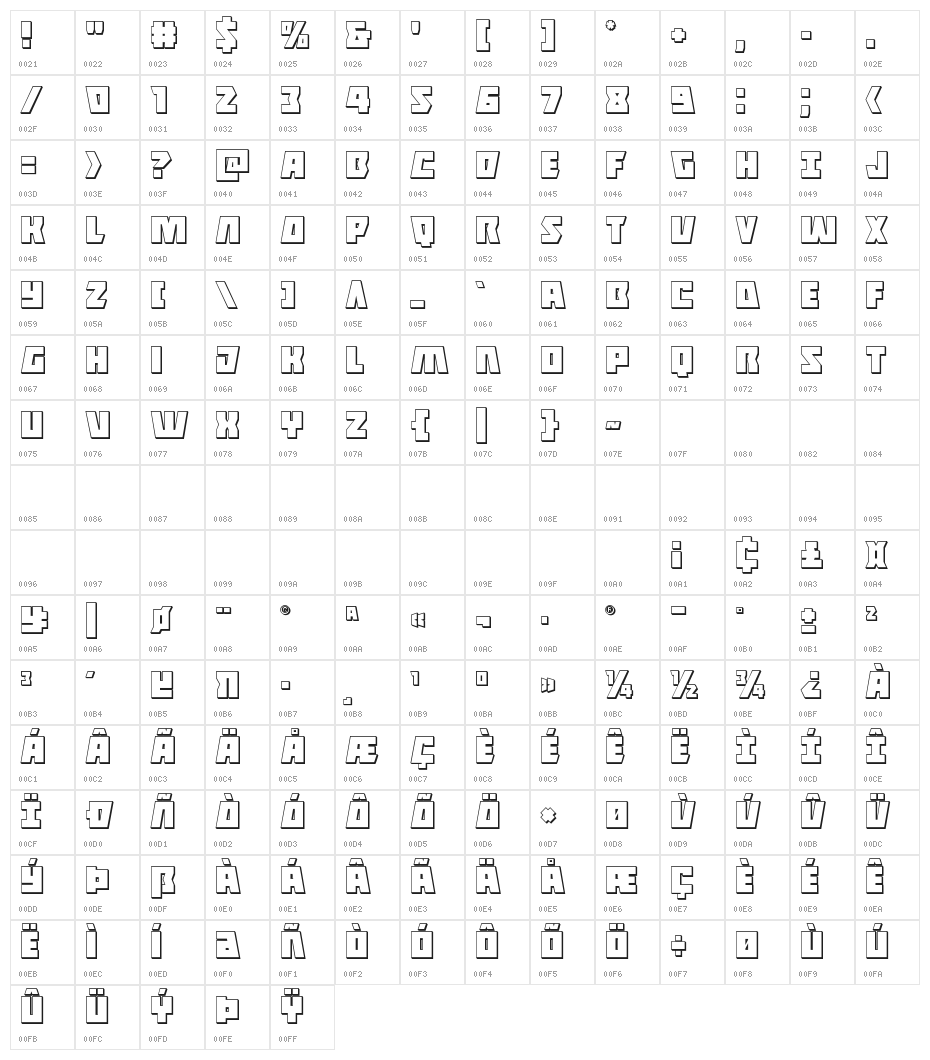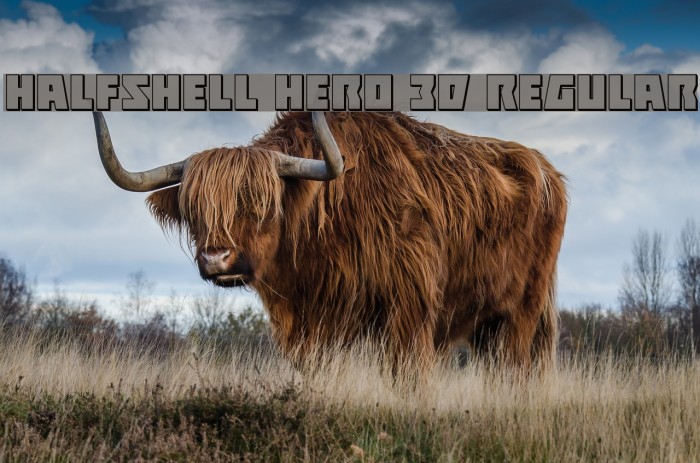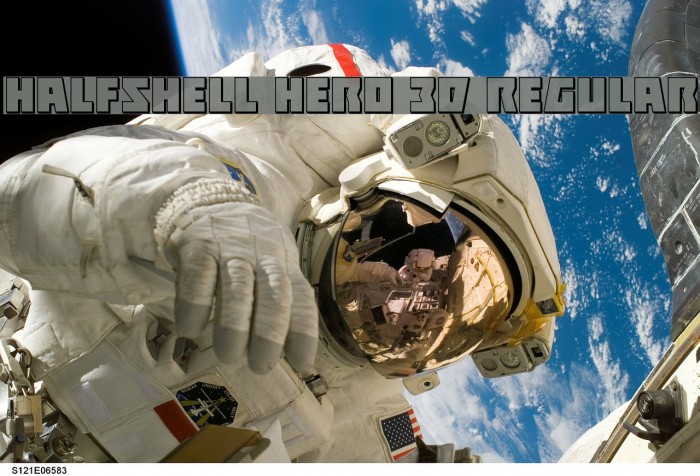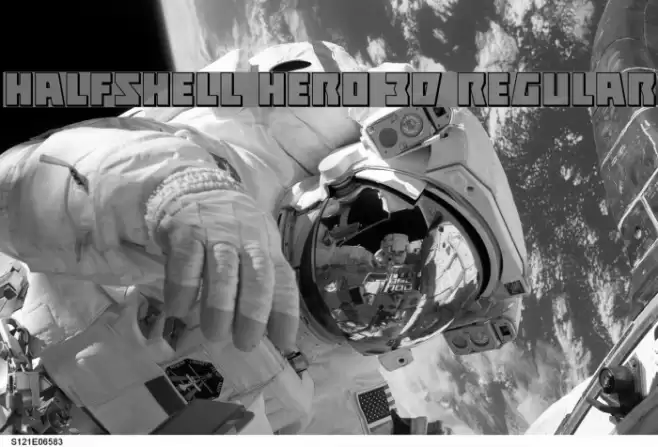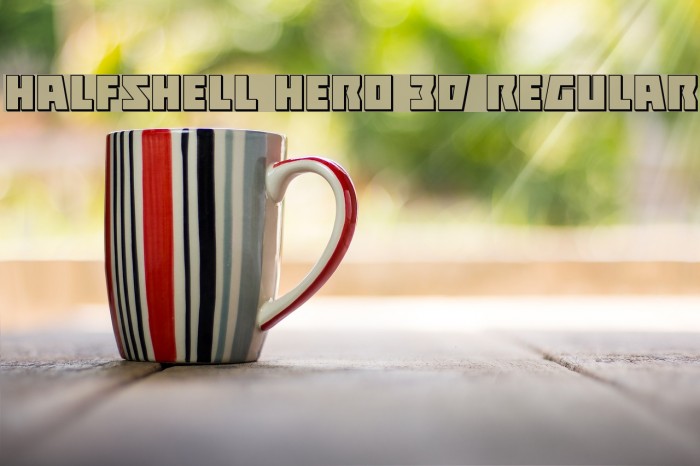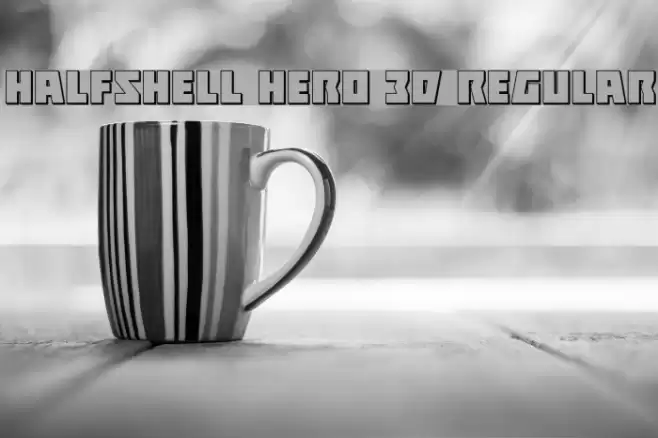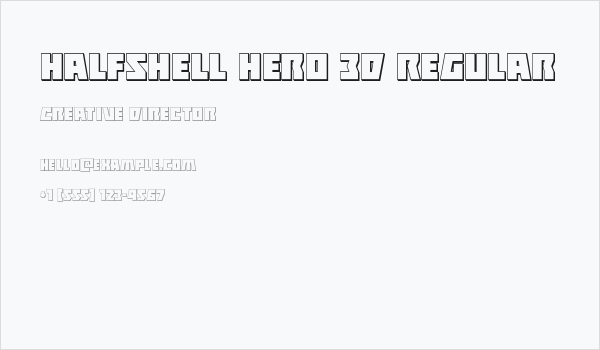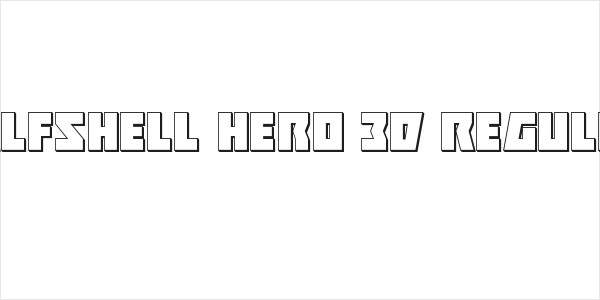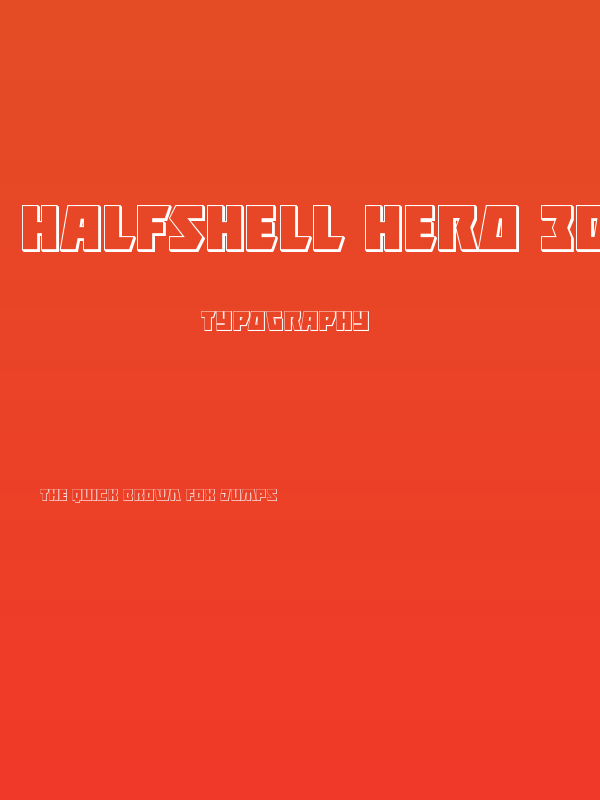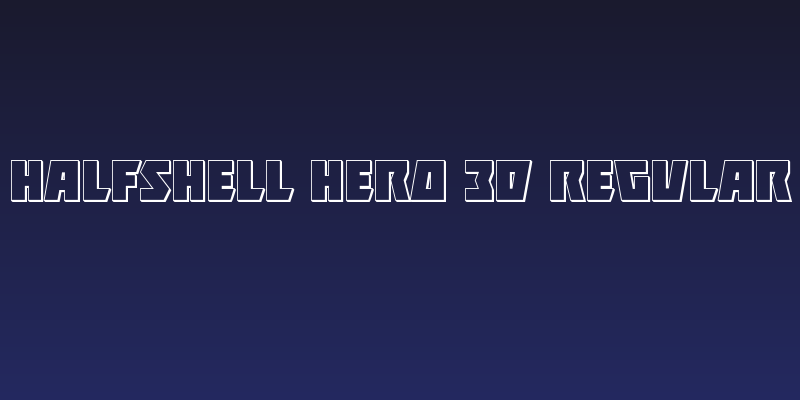
Halfshell Hero 3D Regular Font
Halfshell Hero 3D Regular Description
This font features a bold, three-dimensional style with a strong, geometric presence. Each character is outlined, creating a striking visual effect that emphasizes its blocky, angular design. The uppercase letters are particularly prominent, with sharp edges and a consistent width that gives them a uniform appearance. The numerals and special characters maintain this bold, outlined style, ensuring coherence across all elements. The font's design is reminiscent of retro or arcade aesthetics, making it suitable for projects that require a dynamic and eye-catching typeface.
| Overall Style | Retro, Decorative |
| Proposed Projects | Ideal for video game titles, posters, logos, and any project needing a bold, eye-catching typeface. |